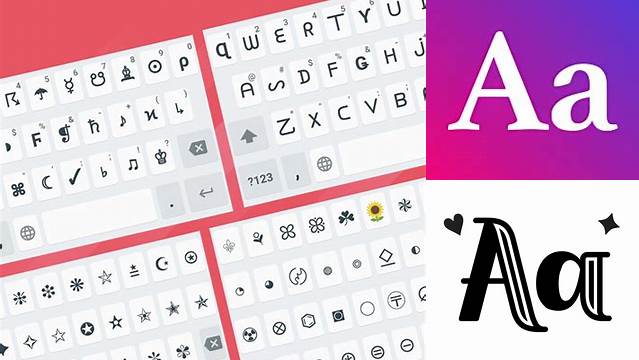
AA Fonts Keyboard Mod: Enhance Your Typing Experience
Hey guys! Ever get tired of the same old boring fonts on your keyboard? Want to spice things up and add a little flair to your typing? Well, you're in luck! Today, we're diving deep into the world of AA Fonts Keyboard Mods, exploring everything from what they are to how you can install them and even create your own. Get ready to transform your typing experience!
What is an AA Fonts Keyboard Mod?
So, what exactly is an AA Fonts Keyboard Mod? Simply put, it's a modification that allows you to change the font used on your keyboard's keycaps. This can range from subtle tweaks to completely overhauling the look of your keyboard. AA fonts are often designed to be more visually appealing, easier to read, or simply more aligned with your personal aesthetic. Think of it like giving your keyboard a makeover, swapping out its old wardrobe for something fresh and exciting. The beauty of AA fonts keyboard mods lies in their ability to personalize your setup and make it truly your own. Whether you're a gamer, a programmer, or just someone who spends a lot of time typing, a custom font can make your keyboard feel more comfortable and inviting. You'll find tons of options out there, from sleek and modern fonts to retro and quirky designs. There's something for everyone, so get ready to explore the possibilities.
Benefits of Using AA Fonts
Why bother with changing your keyboard font in the first place? Well, there are several benefits to using AA fonts. For starters, they can significantly improve readability, especially if you struggle with the default font on your keyboard. AA fonts are often designed with clarity in mind, making it easier to distinguish between characters and reduce eye strain. This is particularly useful for those who spend long hours typing or working on detailed projects. Furthermore, AA fonts can add a touch of personality to your keyboard, reflecting your individual style and preferences. A custom font can make your keyboard feel more like an extension of yourself, a tool that you enjoy using rather than just a means to an end. Plus, let’s be honest, a cool-looking keyboard is just plain fun! AA fonts can also enhance the overall aesthetics of your workspace, contributing to a more visually appealing and inspiring environment. Whether you're aiming for a minimalist setup or a bold and colorful vibe, the right font can help you achieve your desired look. From a practical standpoint, some AA fonts can also be more ergonomic, designed to reduce fatigue and improve typing speed. So, the benefits extend beyond just aesthetics, making it a worthwhile consideration for anyone who takes their typing seriously.
Different Types of AA Fonts Available
The world of AA fonts is vast and varied, with countless options to choose from. You'll find everything from classic serif fonts to modern sans-serif fonts, as well as more specialized options like monospaced fonts and handwritten fonts. Serif fonts, like Times New Roman or Garamond, are characterized by their small decorative strokes, or serifs, at the ends of each character. These fonts are often considered more traditional and formal, making them a good choice for professional settings. Sans-serif fonts, like Arial or Helvetica, lack these serifs, giving them a cleaner and more modern look. These fonts are generally easier to read on screens, making them a popular choice for websites and digital documents. Monospaced fonts, like Courier New, have each character occupying the same amount of horizontal space. This makes them ideal for coding and programming, where alignment is crucial. Handwritten fonts, as the name suggests, mimic the look of handwriting, adding a personal and informal touch to your keyboard. Within each of these categories, you'll find countless variations and styles, each with its unique characteristics. Experiment with different AA fonts to find one that suits your taste and meets your specific needs. Don't be afraid to try something new and unexpected. You might be surprised at what you discover.
Creating Your Own Custom AA Fonts
Feeling creative? Why not try creating your own custom AA font? This can be a fun and rewarding project that allows you to truly personalize your keyboard. There are several font editors available, both free and paid, that you can use to design your own AA font. Some popular options include FontForge, BirdFont, and Glyphs. These programs provide a wide range of tools and features for creating and editing fonts, allowing you to fine-tune every detail of your design. Creating a font from scratch can be a time-consuming process, but it's also a great way to learn about typography and design. You'll need to consider things like the overall style of your font, the spacing between characters, and the kerning, which is the adjustment of space between individual characters. If you're not sure where to start, there are plenty of tutorials and resources available online to guide you through the process. You can also start by modifying an existing font to create something new and unique. Once you've created your custom AA font, you can install it on your keyboard and start using it right away. Imagine the satisfaction of typing with a font that you designed yourself! It's a great way to express your creativity and make your keyboard truly one-of-a-kind.
AA Fonts for Gaming Keyboards
Gamers, listen up! AA fonts can be a game-changer for your gaming experience. A well-chosen font can improve readability, reduce eye strain, and add a touch of style to your gaming setup. When choosing an AA font for your gaming keyboard, consider factors like readability, clarity, and aesthetics. You'll want a font that's easy to read even in low-light conditions, and that doesn't cause eye strain during long gaming sessions. Some popular AA fonts for gaming include pixel fonts, which have a retro and blocky look, and futuristic fonts, which add a touch of sci-fi flair to your keyboard. You can also find AA fonts that are specifically designed for gaming, with bold and aggressive designs that complement the overall aesthetic of your gaming setup. In addition to aesthetics, consider the practical benefits of using AA fonts for gaming. A clear and readable font can help you quickly identify keys and commands, giving you a competitive edge in fast-paced games. Some AA fonts are also designed to be more ergonomic, reducing fatigue and improving typing speed. So, whether you're a casual gamer or a hardcore competitor, the right AA font can enhance your gaming experience and help you perform at your best.
AA Fonts for Mechanical Keyboards
Mechanical keyboard enthusiasts know that every detail matters, from the switches to the keycaps to the font. AA fonts can be a great way to customize your mechanical keyboard and make it truly your own. When choosing an AA font for your mechanical keyboard, consider the overall style of your keyboard and the type of keycaps you're using. You'll want a font that complements the design of your keyboard and that looks good on your keycaps. Some popular AA fonts for mechanical keyboards include classic serif fonts, which add a touch of elegance and sophistication, and modern sans-serif fonts, which have a clean and minimalist look. You can also find AA fonts that are specifically designed for mechanical keyboards, with bold and durable designs that can withstand heavy use. In addition to aesthetics, consider the material and printing method of your keycaps. Some AA fonts may look better on certain types of keycaps than others, depending on the material and printing method. For example, dye-sublimated keycaps tend to work well with bold and simple fonts, while double-shot keycaps can handle more intricate designs. Experiment with different AA fonts and keycaps to find a combination that you love. With a little bit of creativity, you can create a mechanical keyboard that's both functional and beautiful.
AA Fonts for Different Operating Systems
The process of installing and using AA fonts can vary slightly depending on the operating system you're using. Whether you're on Windows, macOS, or Linux, there are specific steps you'll need to follow to get your AA font up and running. On Windows, you can install AA fonts by simply double-clicking the font file and clicking the "Install" button. The font will then be available for use in all of your programs. You can also manage your fonts using the Fonts control panel, which allows you to preview, install, and uninstall fonts. On macOS, you can install AA fonts by dragging the font file into the Fonts folder in your Library folder. The font will then be available for use in all of your programs. You can also manage your fonts using the Font Book application, which allows you to preview, install, and uninstall fonts. On Linux, the process of installing AA fonts can vary depending on the distribution you're using. However, most distributions provide a graphical interface for managing fonts, which allows you to easily install and uninstall fonts. You can also install AA fonts from the command line using tools like fontconfig. Regardless of the operating system you're using, it's important to ensure that the AA font you're installing is compatible with your system. Some fonts may not work properly on certain operating systems, so it's always a good idea to test the font before installing it permanently.
AA Fonts and Readability
One of the most important considerations when choosing an AA font is readability. After all, what's the point of having a fancy font if you can't easily read it? A good AA font should be clear, legible, and easy on the eyes, even after long hours of typing. When evaluating the readability of an AA font, consider factors like the font's x-height, which is the height of the lowercase letters, and the font's character spacing, which is the amount of space between letters. A font with a larger x-height and wider character spacing will generally be easier to read than a font with a smaller x-height and narrower character spacing. You should also consider the font's contrast, which is the difference in brightness between the font and the background. A font with high contrast will be easier to read on a bright background, while a font with low contrast may be more suitable for a dark background. In addition to these technical factors, consider your personal preferences. Some people find serif fonts easier to read, while others prefer sans-serif fonts. Experiment with different AA fonts to find one that you find comfortable and easy to read. Remember, the best AA font for you is the one that you enjoy using and that allows you to type efficiently and comfortably.
AA Fonts and Ergonomics
Believe it or not, AA fonts can even play a role in ergonomics. A well-chosen font can reduce eye strain, improve posture, and make typing more comfortable. When choosing an AA font for ergonomic purposes, consider factors like the font's readability, contrast, and character spacing. As mentioned earlier, a font that's easy to read will reduce eye strain and make typing more comfortable. A font with high contrast will also be easier on the eyes, especially on a bright background. In addition to these factors, consider the font's overall design. Some fonts are designed to be more ergonomic than others, with features like rounded corners and optimized character shapes. These fonts can reduce fatigue and improve typing speed. You should also consider the size of the AA font. A font that's too small can be difficult to read, while a font that's too large can be distracting. Experiment with different font sizes to find one that's comfortable for you. Finally, remember to take breaks and stretch your hands and wrists regularly. Even the most ergonomic AA font won't prevent injuries if you're not taking care of your body. By combining a good AA font with proper ergonomics, you can create a typing setup that's both comfortable and efficient.
AA Fonts and Accessibility
AA fonts can also play a crucial role in accessibility, making it easier for people with disabilities to use computers and other devices. For people with visual impairments, a clear and readable font is essential for accessing information and communicating effectively. When choosing an AA font for accessibility purposes, consider factors like the font's size, contrast, and character spacing. A larger font size will be easier to read for people with low vision, while a font with high contrast will be more visible on different backgrounds. You should also consider the font's character spacing, as wide character spacing can improve readability for people with dyslexia. In addition to these factors, consider using a screen reader or other assistive technology to test the font's accessibility. Screen readers can read the text on the screen aloud, allowing people with visual impairments to access information without having to see it. By choosing an AA font that's compatible with screen readers, you can ensure that your content is accessible to everyone. There are also specialized AA fonts designed specifically for people with dyslexia. These fonts often feature unique character shapes that make it easier to distinguish between letters and reduce confusion. By choosing an accessible AA font, you can make a significant difference in the lives of people with disabilities.
Finding the Right AA Fonts for Your Needs
With so many AA fonts available, it can be overwhelming to find the right one for your needs. Here are some tips to help you narrow down your choices and find the perfect AA font for your keyboard:
- Consider your purpose: What are you using your keyboard for? Are you a gamer, a programmer, a writer, or just a casual user? The type of font you choose should reflect your purpose.
- Think about your style: What kind of aesthetic do you prefer? Do you like classic and elegant fonts, or modern and minimalist fonts? Choose a font that matches your personal style.
- Evaluate readability: Is the font easy to read, even after long hours of typing? Choose a font that's clear, legible, and comfortable on the eyes.
- Test different fonts: Don't be afraid to experiment with different fonts until you find one that you love. Try out a few different options and see which one feels best for you.
- Get feedback: Ask your friends, family, or colleagues for their opinions. Sometimes a fresh perspective can help you make a decision.
By following these tips, you can find the right AA font for your needs and enhance your typing experience.
Free vs. Paid AA Fonts
When it comes to AA fonts, you'll find both free and paid options available. Free fonts can be a great way to experiment and try out different styles without spending any money. However, paid fonts often offer higher quality designs, more features, and better support. Free fonts are typically created by hobbyists or independent designers, and they may not always be professionally crafted. They may also have limited character sets or licensing restrictions. Paid fonts, on the other hand, are usually created by professional type foundries, and they undergo rigorous testing and quality control. They often come with a wider range of weights, styles, and language support. When deciding between free and paid AA fonts, consider your needs and budget. If you're just looking for a simple font for personal use, a free font may be sufficient. However, if you're using the font for professional purposes or need a high-quality design, a paid font is often a better choice. Keep in mind that some free fonts may also come with malware or other security risks, so it's important to download them from reputable sources.
AA Fonts and Branding
For businesses and organizations, AA fonts can play a crucial role in branding. The font you choose can convey a certain message and create a specific impression on your audience. When choosing an AA font for branding purposes, consider your brand's personality, values, and target audience. A font that's consistent with your brand identity can help you create a strong and recognizable brand. For example, a company that wants to project a sense of sophistication and elegance might choose a classic serif font like Times New Roman or Garamond. A company that wants to convey a sense of innovation and modernity might choose a sans-serif font like Helvetica or Arial. You should also consider the font's readability and legibility. A font that's difficult to read can be frustrating for your audience and can damage your brand's reputation. When choosing an AA font for branding, it's important to use it consistently across all of your marketing materials, including your website, logo, and print materials. This will help you create a cohesive and recognizable brand identity. You should also consider the licensing restrictions of the font. Some fonts may not be licensed for commercial use, so it's important to ensure that you have the appropriate license before using the font for your branding.
Troubleshooting Common AA Fonts Issues
Sometimes, you may encounter issues when installing or using AA fonts. Here are some common problems and how to troubleshoot them:
- Font not showing up: If the font doesn't show up in your program after you've installed it, try restarting your computer or the program. You may also need to refresh the font list in the program's settings.
- Font displaying incorrectly: If the font is displaying incorrectly, try clearing your font cache or reinstalling the font. You may also need to update your graphics drivers.
- Font causing crashes: If the font is causing your program to crash, it may be corrupted or incompatible with your system. Try uninstalling the font and using a different font.
- Font licensing issues: If you're using a font for commercial purposes, make sure you have the appropriate license. Using a font without a license can result in legal penalties.
If you're still having trouble, try searching online for solutions or contacting the font designer for support.
The Future of AA Fonts
The world of AA fonts is constantly evolving, with new designs and technologies emerging all the time. In the future, we can expect to see even more innovative and customizable fonts, as well as new ways to use fonts in different applications. One trend that's gaining popularity is variable fonts, which allow you to adjust various parameters of the font, such as weight, width, and slant, to create a custom look. Variable fonts can be used to optimize readability, create unique designs, and adapt to different screen sizes and resolutions. Another trend is the use of artificial intelligence in font design. AI can be used to generate new font designs automatically, based on specific parameters and styles. This can help designers create fonts more quickly and efficiently, and it can also lead to the creation of entirely new and unexpected font styles. We can also expect to see more fonts designed specifically for virtual reality and augmented reality applications. These fonts will need to be highly readable and legible in immersive environments, and they will need to be optimized for different display technologies. As technology continues to evolve, AA fonts will continue to play a crucial role in communication and design.
AA Fonts and Mobile Devices
AA Fonts aren't just for desktop computers; they're also incredibly relevant for mobile devices. Customizing the font on your smartphone or tablet can significantly enhance your reading experience and add a personal touch to your device. Whether you're using an Android or iOS device, there are several ways to change the system font and install custom AA Fonts. On Android, you can typically change the system font through the device's settings menu. The exact steps may vary depending on your device manufacturer and Android version, but generally, you'll find the font settings under Display or Accessibility. Some Android devices also allow you to install custom AA Fonts directly from the Google Play Store. On iOS, the process of changing the system font is a bit more restricted. Apple doesn't natively allow users to change the system font, but there are workarounds available, such as jailbreaking your device or using third-party apps that offer custom font options within specific apps. When choosing AA Fonts for your mobile device, consider factors like readability, screen size, and battery life. A font that's easy to read on a small screen is essential for comfortable reading, and a font that's optimized for mobile devices can help conserve battery life. You should also consider the overall style of your device and choose a font that complements its design. With a little bit of experimentation, you can find the perfect AA Font to enhance your mobile experience.
AA Fonts for Web Design
In the world of web design, AA Fonts are a critical element in creating a visually appealing and user-friendly website. The font you choose can significantly impact the readability, aesthetics, and overall user experience of your website. When selecting AA Fonts for web design, it's essential to consider factors like readability, compatibility, and loading speed. A font that's easy to read on screens is crucial for ensuring that your website content is accessible to all users. You should also choose fonts that are compatible with different web browsers and devices. Additionally, consider the loading speed of your AA Fonts, as large font files can slow down your website and negatively impact user experience. There are several ways to incorporate AA Fonts into your web design. You can use web-safe fonts, which are fonts that are pre-installed on most computers and devices. Alternatively, you can use web fonts, which are fonts that are hosted online and can be loaded dynamically when a user visits your website. Web fonts offer more flexibility and customization options, but they can also impact loading speed. Popular web font services include Google Fonts, Adobe Fonts, and Font Squirrel. When using web fonts, it's essential to optimize them for web performance by using techniques like font subsetting and font compression. By carefully choosing and implementing AA Fonts in your web design, you can create a website that's both visually appealing and user-friendly.
AA Fonts and Graphic Design
AA Fonts are an indispensable tool for graphic designers, playing a pivotal role in creating visually stunning and effective designs. Whether you're designing a logo, a poster, or a brochure, the font you choose can significantly impact the overall message and impact of your design. When selecting AA Fonts for graphic design, it's crucial to consider factors like readability, style, and personality. The font should be easy to read and legible, even at small sizes. It should also complement the overall style and tone of your design. Additionally, consider the personality of the font and how it aligns with the message you're trying to convey. There are countless AA Fonts available for graphic designers, ranging from classic serif fonts to modern sans-serif fonts to unique and experimental fonts. Each font has its own unique characteristics and can evoke different emotions and associations. Serif fonts, like Times New Roman and Garamond, are often associated with tradition, elegance, and authority. Sans-serif fonts, like Helvetica and Arial, are often associated with modernity, simplicity, and clarity. Script fonts, like Brush Script and Lucida Handwriting, are often associated with creativity, personality, and informality. When using AA Fonts in graphic design, it's essential to use them strategically and purposefully. Consider the hierarchy of your text and use different fonts and sizes to create visual interest and guide the viewer's eye. You should also pay attention to the spacing and kerning of your text to ensure that it's readable and visually appealing. By mastering the art of using AA Fonts in graphic design, you can create designs that are both beautiful and effective.
Legal Considerations for Using AA Fonts
When using AA Fonts, it's crucial to be aware of the legal considerations and licensing agreements associated with them. Fonts are considered intellectual property and are protected by copyright law. Using a font without the appropriate license can result in legal penalties. There are several types of font licenses available, each with its own terms and conditions. Some fonts are licensed for personal use only, while others are licensed for commercial use. Some licenses allow you to use the font on a limited number of devices, while others allow you to use it on an unlimited number of devices. It's essential to carefully review the licensing agreement for each AA Font you use to ensure that you're complying with its terms and conditions. If you're using a font for commercial purposes, it's crucial to obtain a commercial license. A commercial license typically grants you the right to use the font in your marketing materials, website, and other commercial projects. You should also be aware of the restrictions on modifying and distributing AA Fonts. Some licenses prohibit you from modifying the font or distributing it to others. If you're unsure about the licensing terms for a particular AA Font, it's best to contact the font designer or foundry for clarification. By understanding and complying with the legal considerations for using AA Fonts, you can protect yourself from legal issues and ensure that you're using fonts responsibly.
AA Fonts for Print vs. Digital Media
AA Fonts behave differently depending on whether they are used in print or digital media. Understanding these differences is key to creating effective designs for both mediums. When designing for print, AA Fonts are typically rendered at a high resolution, resulting in sharp and crisp text. However, print fonts can be more complex and detailed, as they don't need to be optimized for screen display. When designing for digital media, AA Fonts are typically rendered at a lower resolution, resulting in slightly less sharp text. Digital fonts need to be optimized for screen display to ensure readability and performance. One key difference between print and digital fonts is the use of hinting. Hinting is a technique used to optimize fonts for screen display by adjusting the shape of the characters at specific pixel sizes. Hinting can improve the readability of digital fonts, especially at small sizes. Another difference is the use of anti-aliasing. Anti-aliasing is a technique used to smooth the edges of digital fonts by blending the font color with the background color. Anti-aliasing can improve the appearance of digital fonts, but it can also make them appear slightly blurry. When choosing AA Fonts for print vs. digital media, it's important to consider these differences and choose fonts that are optimized for the specific medium. For print, you can use more complex and detailed fonts. For digital media, you should use fonts that are optimized for screen display and readability. By understanding the nuances of AA Fonts in print vs. digital media, you can create designs that look great in both mediums.
Combining AA Fonts Effectively
Combining AA Fonts effectively is an art that can elevate your designs to the next level. When done well, font pairing can create visual interest, establish hierarchy, and enhance the overall message of your design. However, when done poorly, font pairing can create a confusing and unprofessional look. Here are some tips for combining AA Fonts effectively:
- Contrast is key: Choose fonts that contrast each other in terms of weight, style, or personality. For example, you can pair a bold sans-serif font with a delicate serif font.
- Establish hierarchy: Use different fonts to establish a clear hierarchy in your design. For example, you can use a bold font for headings and a lighter font for body text.
- Limit the number of fonts: Don't use too many fonts in a single design. A good rule of thumb is to stick to two or three fonts at most.
- Consider the mood: Choose fonts that reflect the mood and tone of your design. For example, you can use a playful font for a children's book and a sophisticated font for a business brochure.
- Test your font pairings: Before finalizing your design, test your font pairings on different devices and screens to ensure that they look good in all contexts.
By following these tips, you can combine AA Fonts effectively and create designs that are both visually appealing and effective.
AA Fonts and Color Psychology
The color of your AA Fonts can have a profound impact on how your message is perceived. Color psychology is the study of how colors affect human emotions and behavior. By understanding the principles of color psychology, you can use AA Fonts to create designs that are more effective and impactful. Here are some common color associations:
- Red: Associated with passion, energy, and excitement. Can also be associated with danger and aggression.
- Blue: Associated with trust, stability, and calmness. Can also be associated with sadness and coldness.
- Green: Associated with nature, growth, and health. Can also be associated with envy and greed.
- Yellow: Associated with happiness, optimism, and creativity. Can also be associated with anxiety and caution.
- Purple: Associated with royalty, luxury, and spirituality. Can also be associated with mystery and darkness.
When choosing the color of your AA Fonts, consider the message you're trying to convey and the emotions you want to evoke. For example, if you're designing a logo for a financial institution, you might choose a blue font to convey trust and stability. If you're designing a poster for a rock concert, you might choose a red font to convey energy and excitement. You should also consider the background color of your design. The contrast between the font color and the background color can affect the readability and impact of your message. By understanding the principles of color psychology, you can use AA Fonts to create designs that are both visually appealing and emotionally resonant.
Creating a Font Library for Easy Access
Managing your AA Fonts can become challenging as your collection grows. Creating a font library can help you organize, preview, and access your fonts easily. Here's how to create a font library:
- Choose a font management tool: There are many font management tools available, both free and paid. Some popular options include NexusFont, FontBase, and RightFont.
- Install the font management tool: Download and install the font management tool of your choice.
- Import your fonts: Import your AA Fonts into the font management tool. The tool will typically scan your computer for font files and import them into the library.
- Organize your fonts: Organize your fonts into categories or collections based on style, purpose, or project. This will make it easier to find the fonts you need.
- Preview your fonts: Use the font management tool to preview your fonts and see how they look in different sizes and styles.
- Activate and deactivate fonts: Activate the fonts you want to use and deactivate the fonts you don't need. This can help improve the performance of your computer.
By creating a font library, you can streamline your workflow and make it easier to manage your AA Fonts.
AA Fonts and Responsive Design
In today's multi-device world, responsive design is essential for creating websites and applications that look great on all screens. AA Fonts play a crucial role in responsive design, ensuring that your text is readable and visually appealing on devices of all sizes. When designing for responsiveness, it's important to use scalable fonts that can adapt to different screen sizes. Web fonts are a great option for responsive design, as they can be loaded dynamically and scaled to fit the screen. You should also use relative font sizes, such as ems or rems, instead of fixed font sizes, such as pixels. Relative font sizes scale proportionally to the screen size, ensuring that your text remains readable on all devices. Additionally, you should use media queries to adjust the font size and style based on the screen size. Media queries allow you to apply different CSS rules based on the characteristics of the device, such as its width, height, or resolution. By using AA Fonts strategically in responsive design, you can create websites and applications that provide a great user experience on all devices.
Backing Up Your AA Fonts Collection
Protecting your AA Fonts collection is crucial, as losing your fonts can be a major inconvenience. Backing up your fonts ensures that you can restore them in case of a computer crash, accidental deletion, or other unforeseen events. Here are some ways to back up your AA Fonts collection:
- External hard drive: Copy your fonts to an external hard drive. This is a simple and reliable way to back up your fonts.
- Cloud storage: Upload your fonts to a cloud storage service, such as Google Drive, Dropbox, or OneDrive. This allows you to access your fonts from anywhere and restore them easily.
- Font management tool: Some font management tools offer built-in backup features. Use these features to back up your fonts regularly.
- Keep original font files: Keep the original font files that you downloaded from the font designer or foundry. This will allow you to reinstall the fonts if needed.
By backing up your AA Fonts collection regularly, you can protect yourself from data loss and ensure that you always have access to your favorite fonts.
So there you have it, guys! A comprehensive guide to AA Fonts Keyboard Mods. From understanding the basics to creating your own custom fonts, we've covered everything you need to know to transform your typing experience. So go ahead, experiment with different fonts, and find the perfect one to express your personality and enhance your workflow. Happy typing!